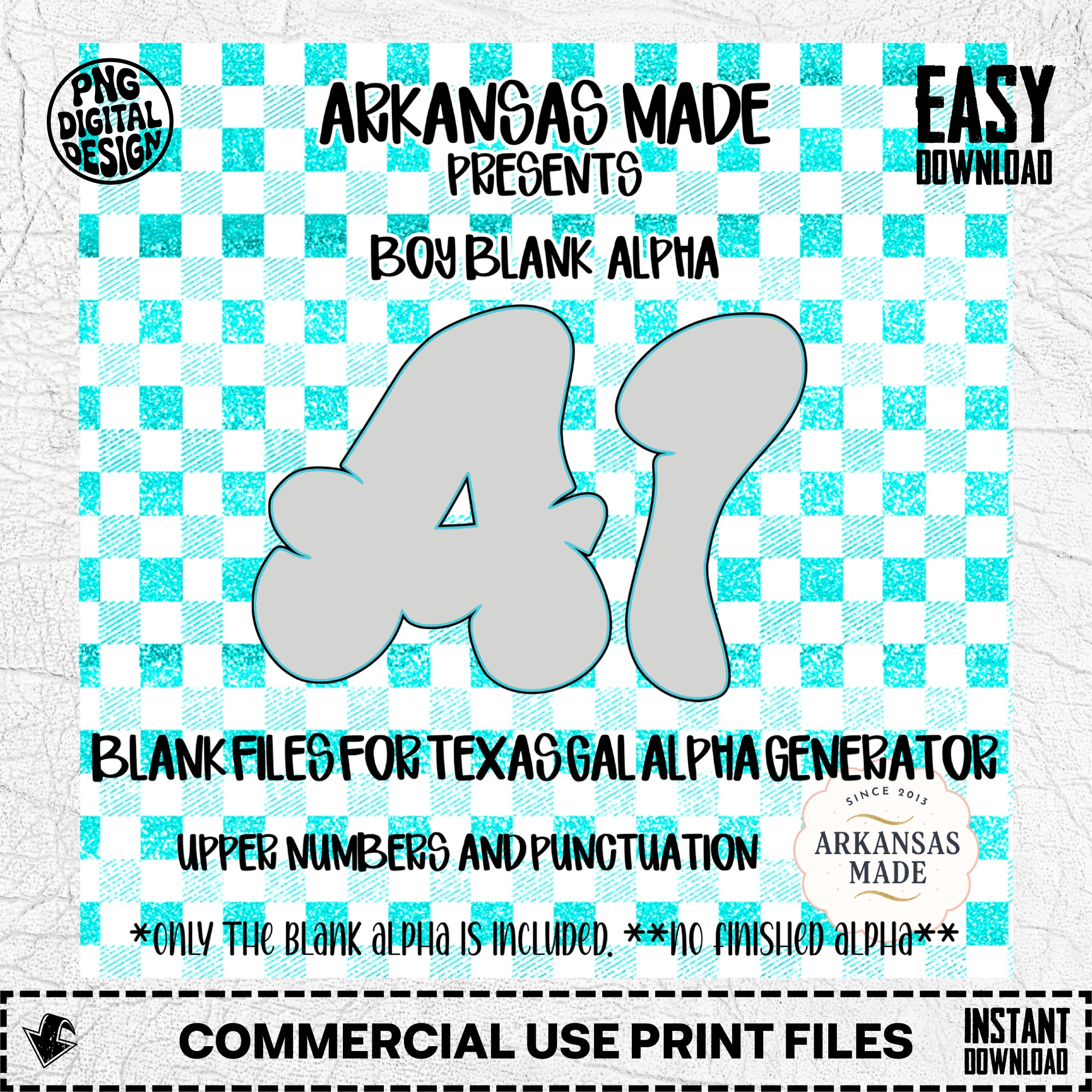
Blank Fillable Alpha Set | Bubble Letters SVG PNG | Chunky Varsity Font | Digital Download for Custom Crafts & Designs
Create custom designs with our Blank Fillable Alpha Set. This versatile bubble letters SVG and PNG bundle includes numbers and punctuation for all your DIY projects. Unleash your creativity with this trendy, chunky font alphabet. Perfect for crafters, small businesses, and graphic designers, these digital files are ideal for sublimation, vinyl, and paper crafts. Design unique personalized gifts for birthdays, baby showers, or any special occasion, from custom apparel to home decor.